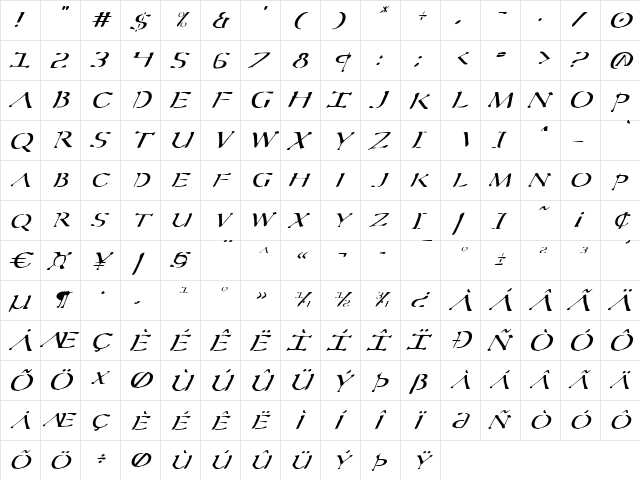
Sever Italic Italic
Design Context for Sever Italic Typeface
Sever Italic takes a measured approach to typography — its balanced proportions and neutral character make it a reliable workhorse for both digital and print work. The dynamic lean of this cut emphasises speed and emphasis in any layout.
Pro Tip: Use Sever Italic for emphasis, pull quotes, and subheadings where its slanted energy can add rhythm to the layout.